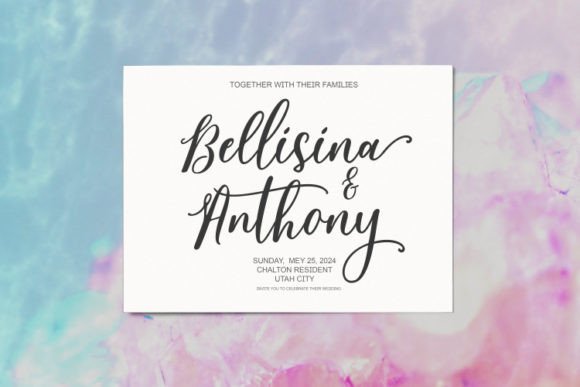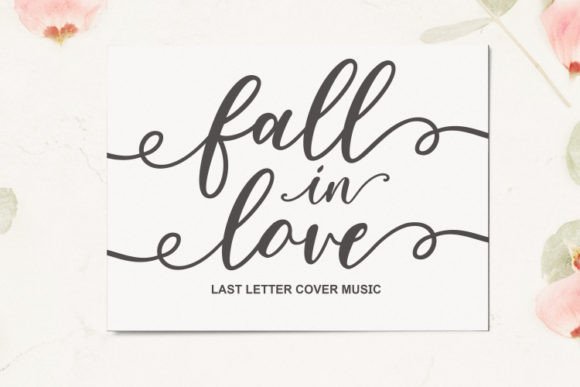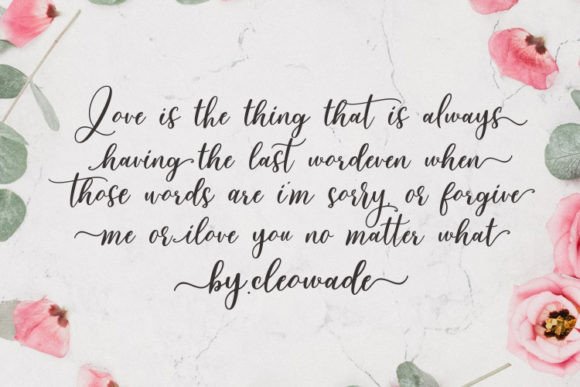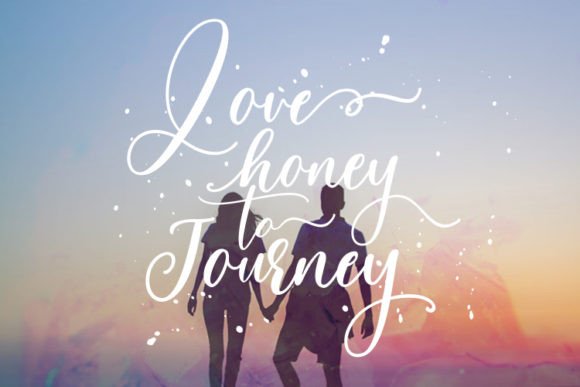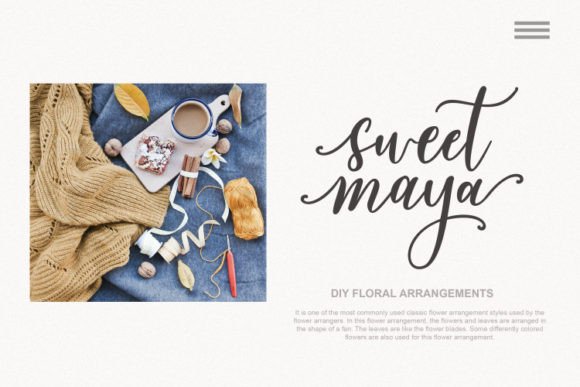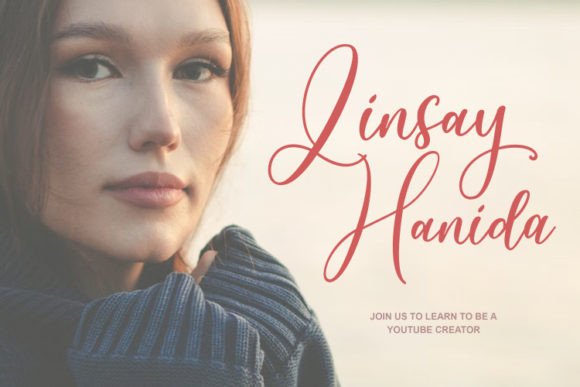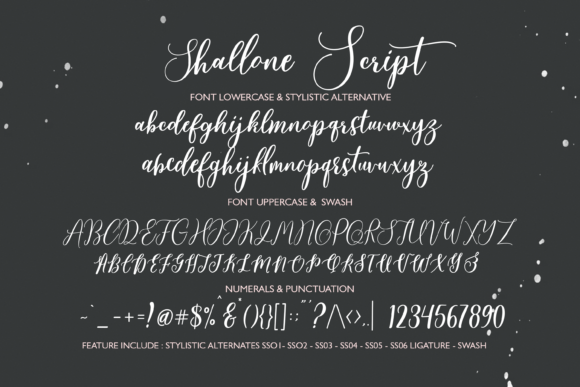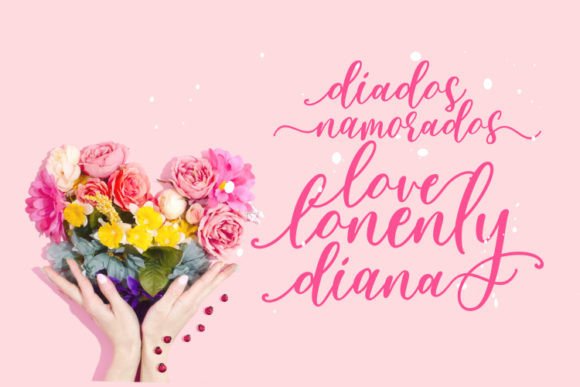
Shallone Font
About Shallone Font
Shallone is a stunning script font that exudes elegance and sophistication. With meticulous craftsmanship and intricate detailing, this font stands as a testament to precision and artistry. Regardless of the subject matter or the creative project at hand, Shallone proves to be an invaluable addition to your font library, capable of elevating and enhancing any creation.
The font’s graceful and highly detailed letterforms reflect a commitment to quality and a dedication to delivering a typeface that radiates beauty and refinement.
One notable feature of Shallone is its PUA encoding, which simplifies access to a vast array of glyphs and swashes. This means that you have the creative freedom to customize your text with a variety of character alternatives, ensuring that your designs are as unique and visually striking as your imagination allows.
Shallone’s versatility is one of its defining characteristics, making it suitable for a wide range of creative applications. Whether you’re working on branding materials, invitations, editorial design, or any project that calls for a touch of sophistication, Shallone rises to the occasion, imbuing your work with a sense of class and grace that captivates the eye.
In summary, Shallone is not merely a font; it’s a work of art that enriches your font library and elevates your creative projects. Its attention to detail and elegant design, combined with its PUA encoding for added customization, make it an invaluable asset for crafting designs that exude beauty and refinement. Embrace Shallone and unlock the potential to create visually stunning and unique works of art.